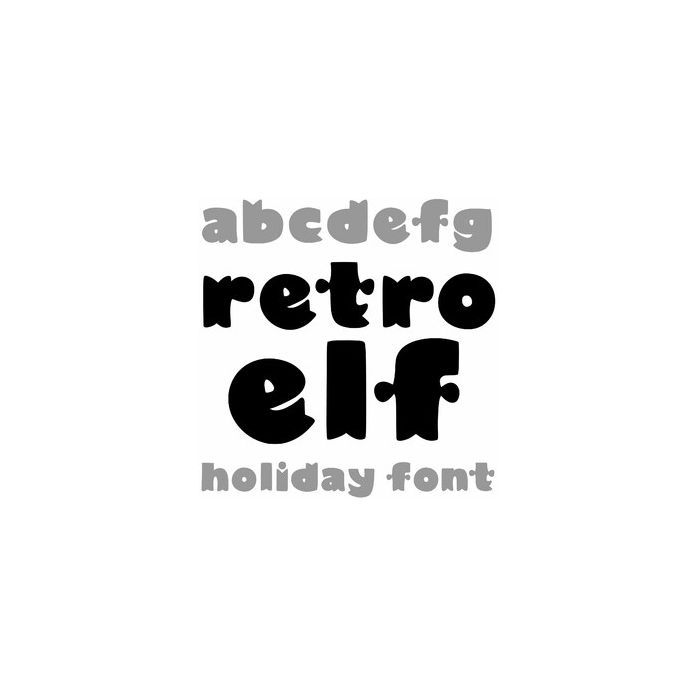
Cute and bold, Retro Elf Holiday Font is fun for Christmas cards, crafts, monograms, signs, projects, and personalizing. Includes alphabet, numbers, and punctuation.